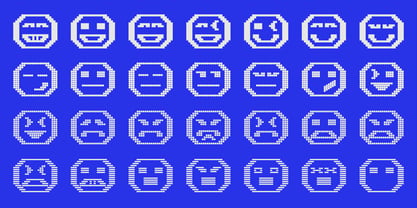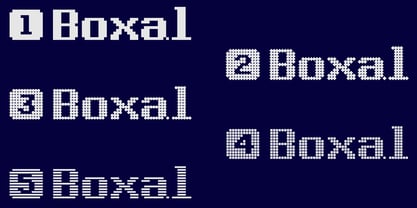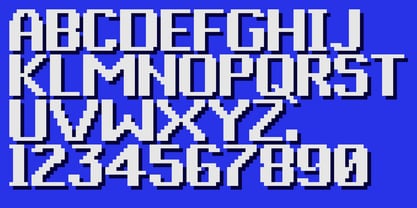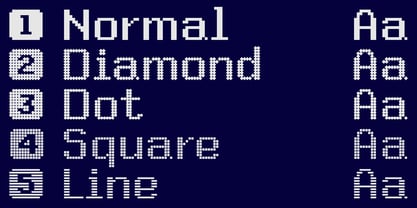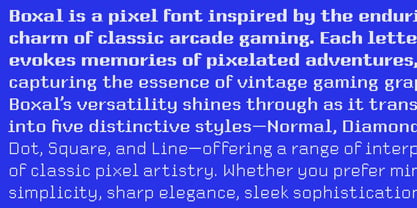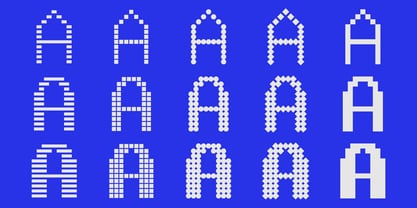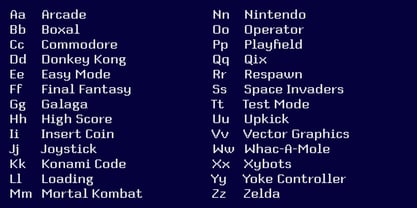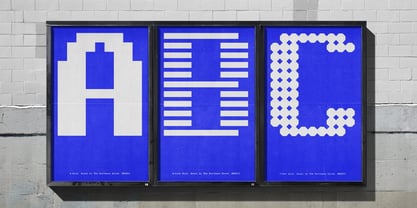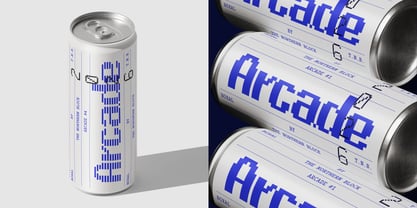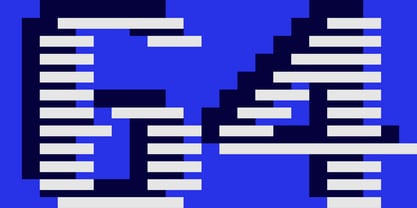
The Boxal Font Family was designed by Jonathan Hill and published by The Northern Block. Boxal contains 15 styles and family package options. More about this family
Boxal is a pixel font inspired by the enduring charm of classic arcade gaming. Each letterform evokes memories of pixelated adventures, capturing the essence of vintage gaming graphics. Boxal’s versatility shines through as it transforms into five distinctive styles—Normal, Diamond, Dot, Square, and Line—offering a range of interpretations of classic pixel artistry. Whether you prefer minimalist simplicity, sharp elegance, sleek sophistication, or bold statements, Boxal has a style to suit every project.
With its playful homage to arcade gaming, Boxal invites designers and gamers alike to rediscover the magic of pixel artistry. Whether on digital screens or in print, this pixel font adds a touch of vintage flair, transporting users back to a time when gaming was defined by imagination and pixelated wonder. Embrace the retro charm of Boxal and let it ignite your passion for the enduring appeal of classic video games.